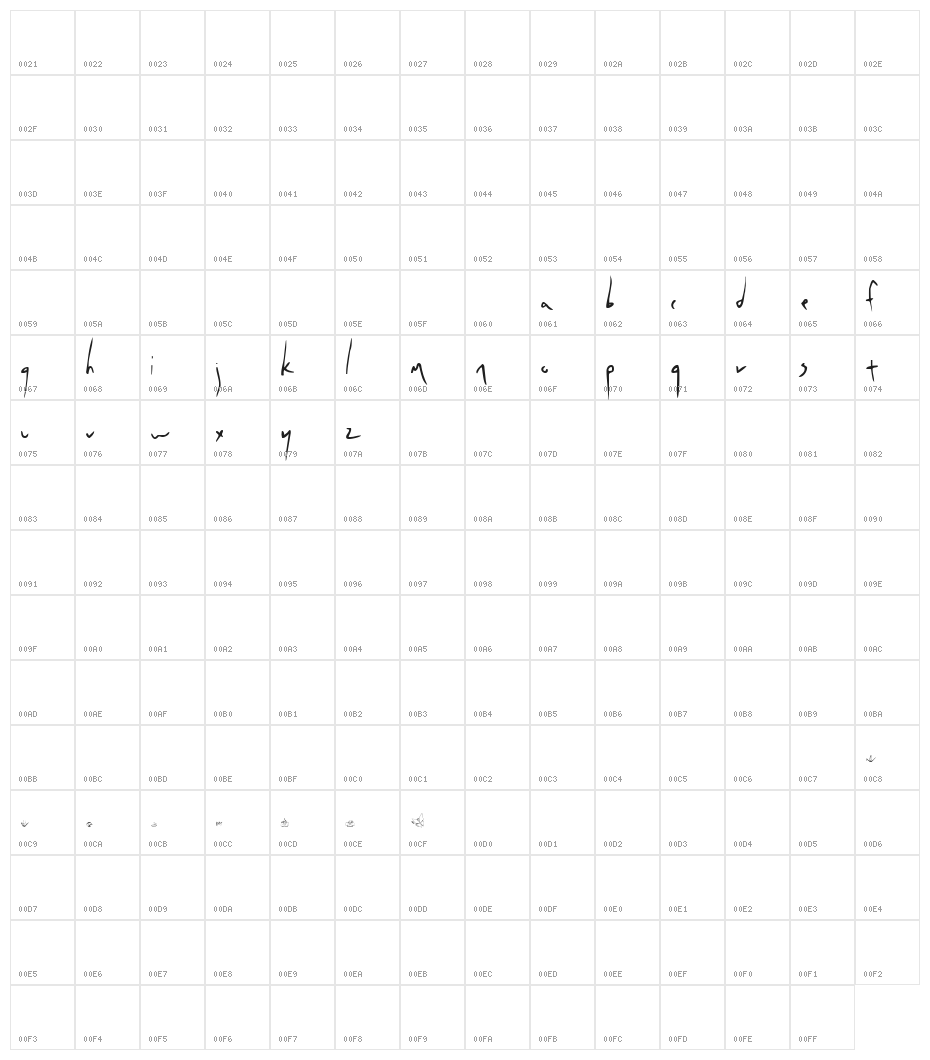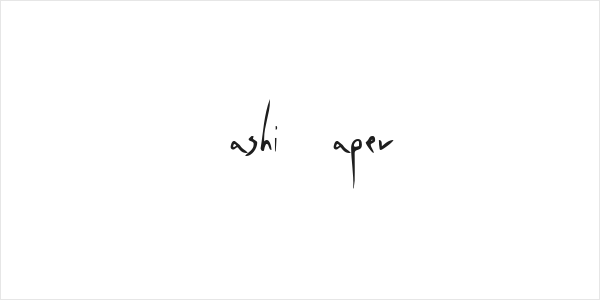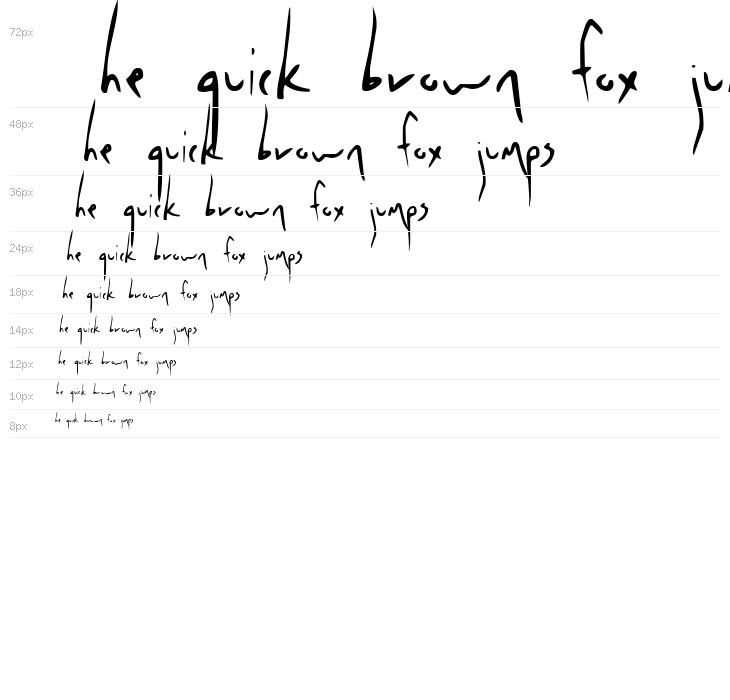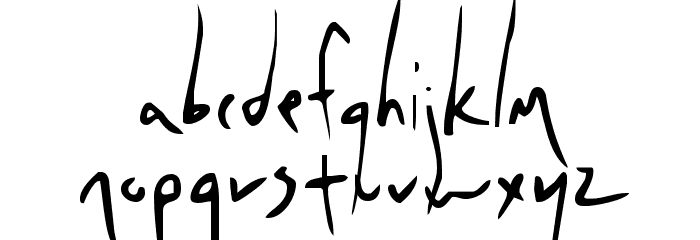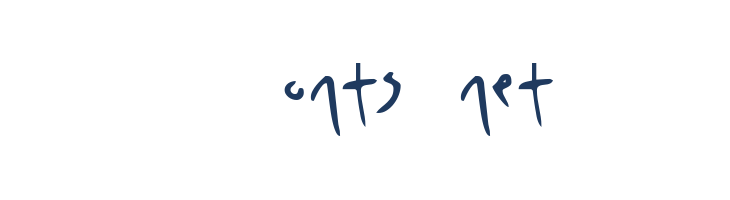
Washi Paper Font
Washi Paper Description
This font exudes a unique, artistic flair, reminiscent of hand-drawn calligraphy with a modern twist. The characters are elongated and feature irregular strokes, giving them a dynamic and fluid appearance. The overall design is both playful and sophisticated, with a touch of whimsy that makes it stand out. The strokes vary in thickness, adding a sense of movement and energy to the text. This font is perfect for projects that require a personal, handcrafted feel, while still maintaining a contemporary edge.
| Overall Style | Modern, Artistic |
| Use Case | Logos, Artistic projects, Invitations |
| Proposed Projects | Ideal for creative projects such as invitations, greeting cards, artistic posters, and branding materials that seek a personal touch. |